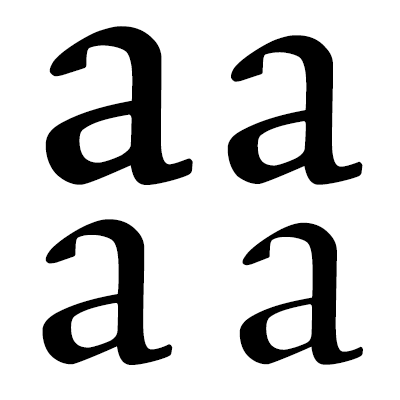
Versions of a typeface tailored for use at specific size ranges (e.g., “caption”, “text”, “display”, etc.). Differences in contrast and tracking are common.
Dutch: optische gradaties
French: Tailles optiques
German: Optische Größen
Polish: rozmiar optyczny
Spanish: Tamaños ópticos